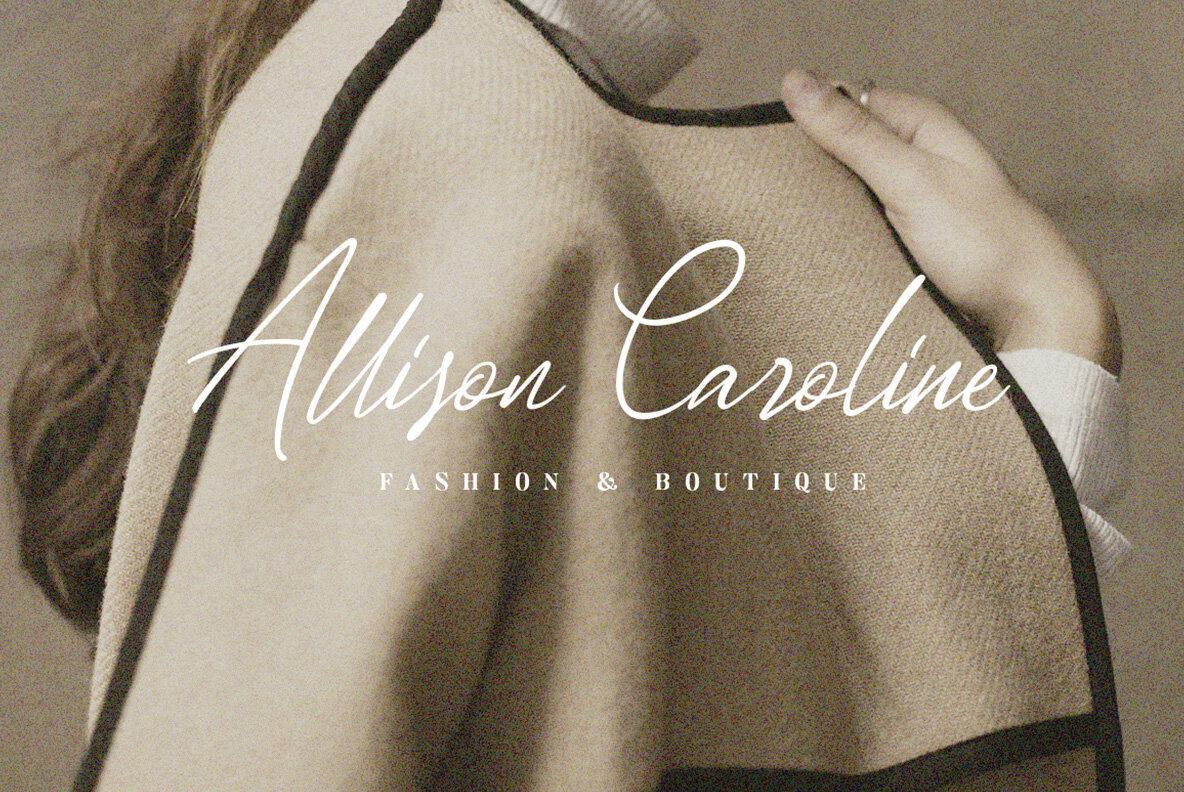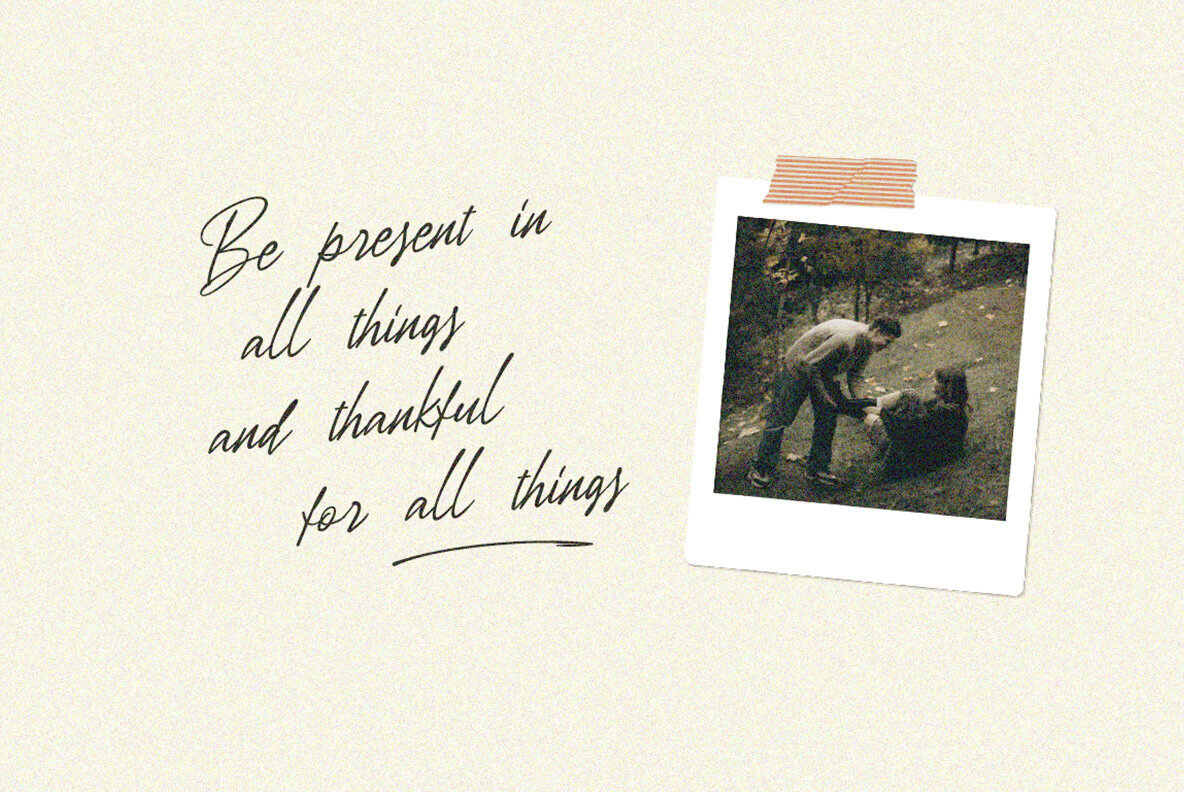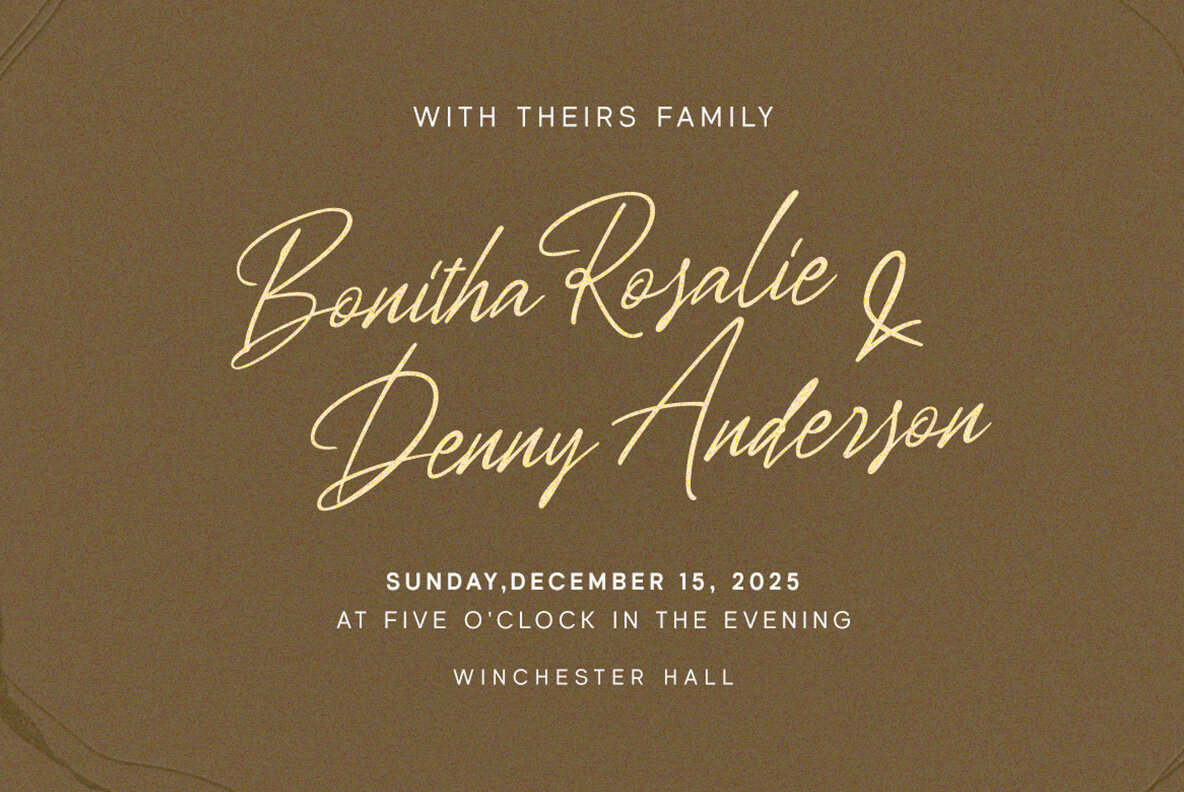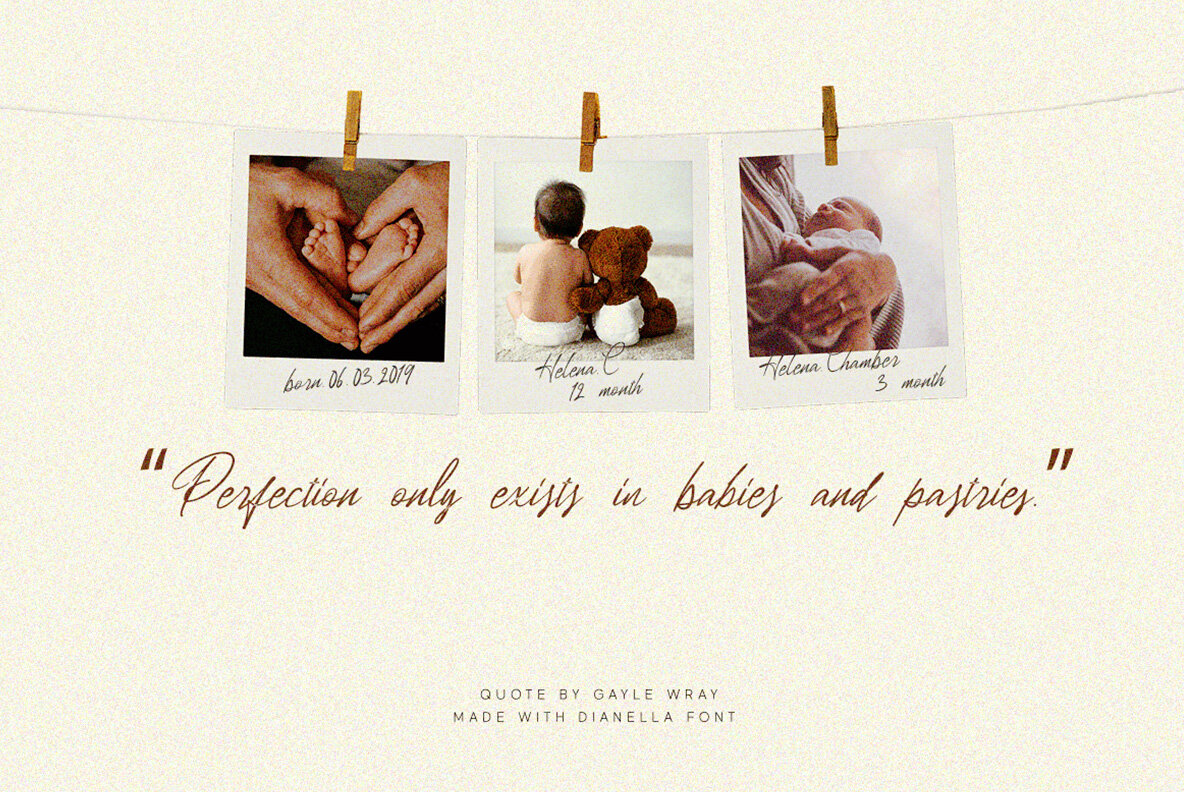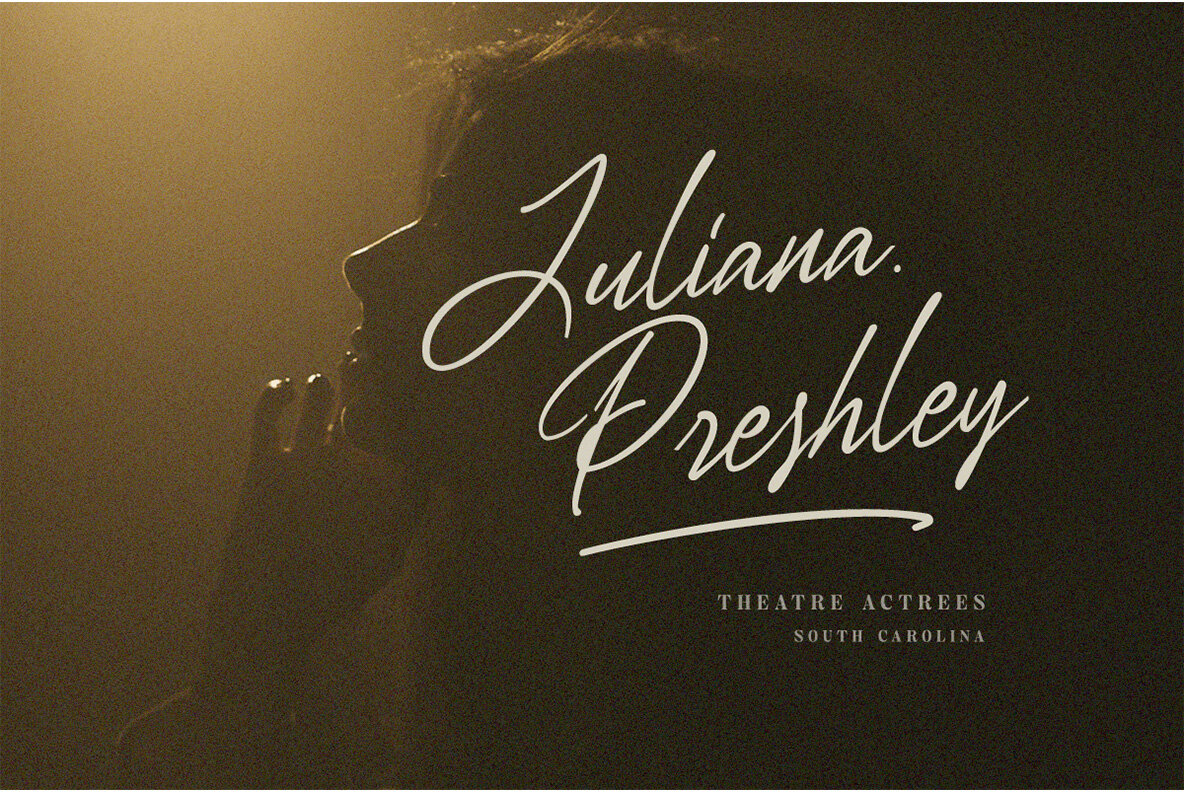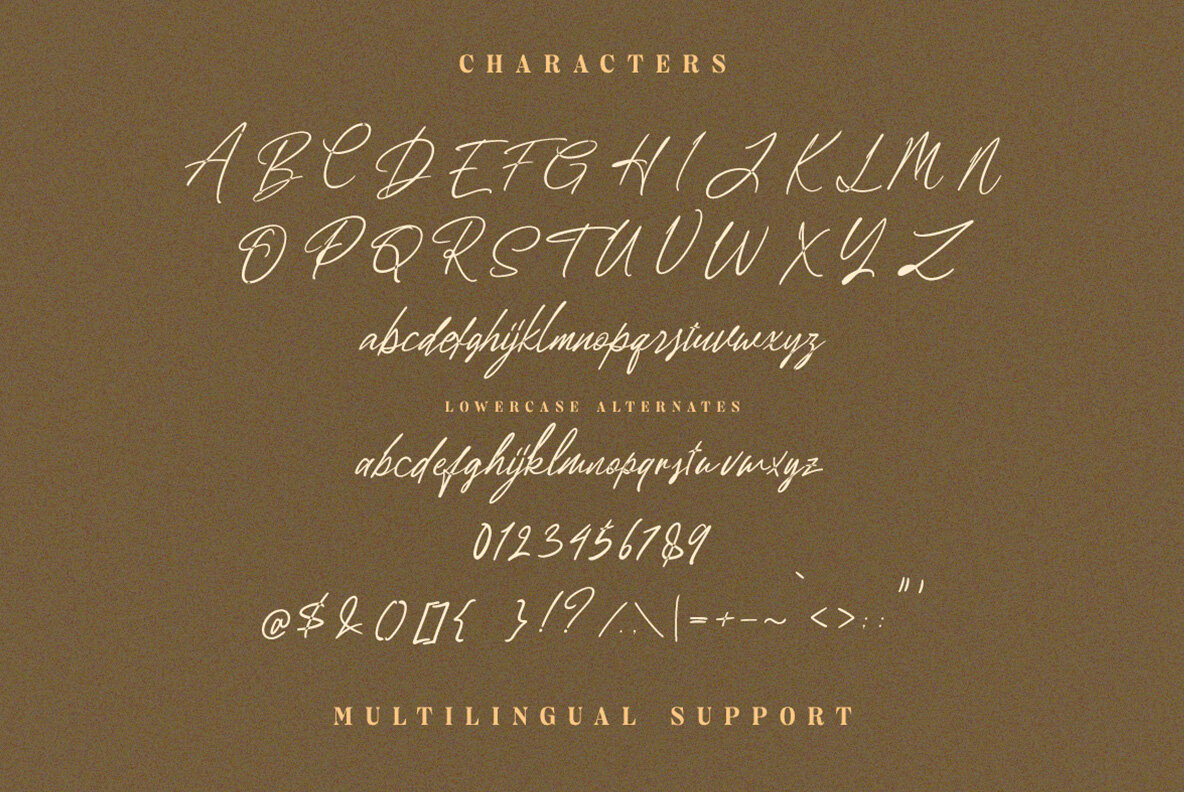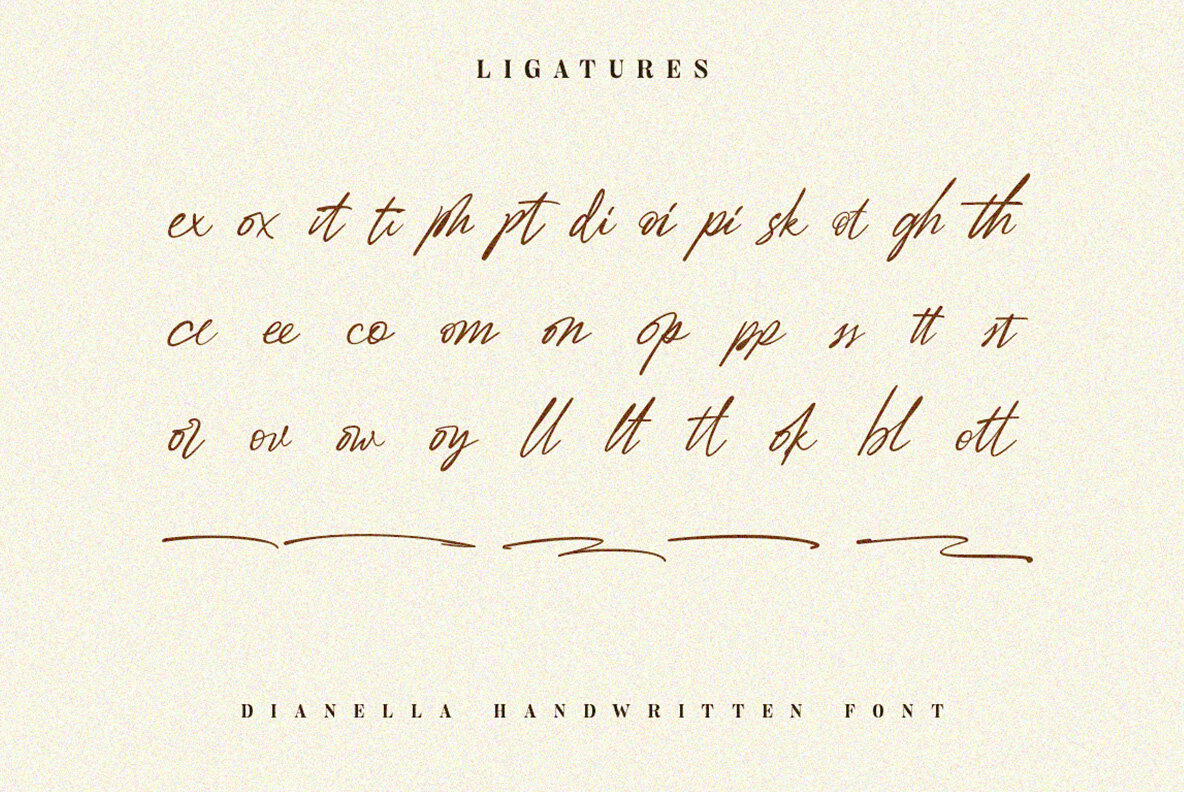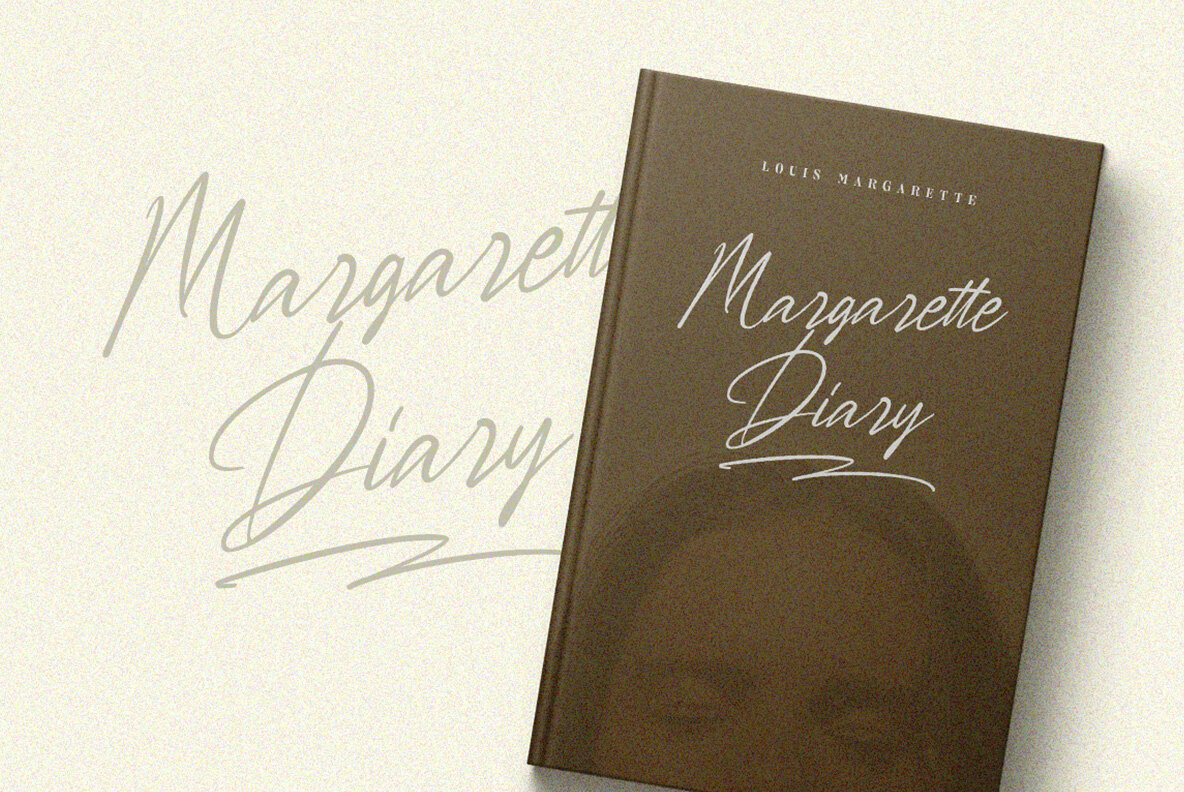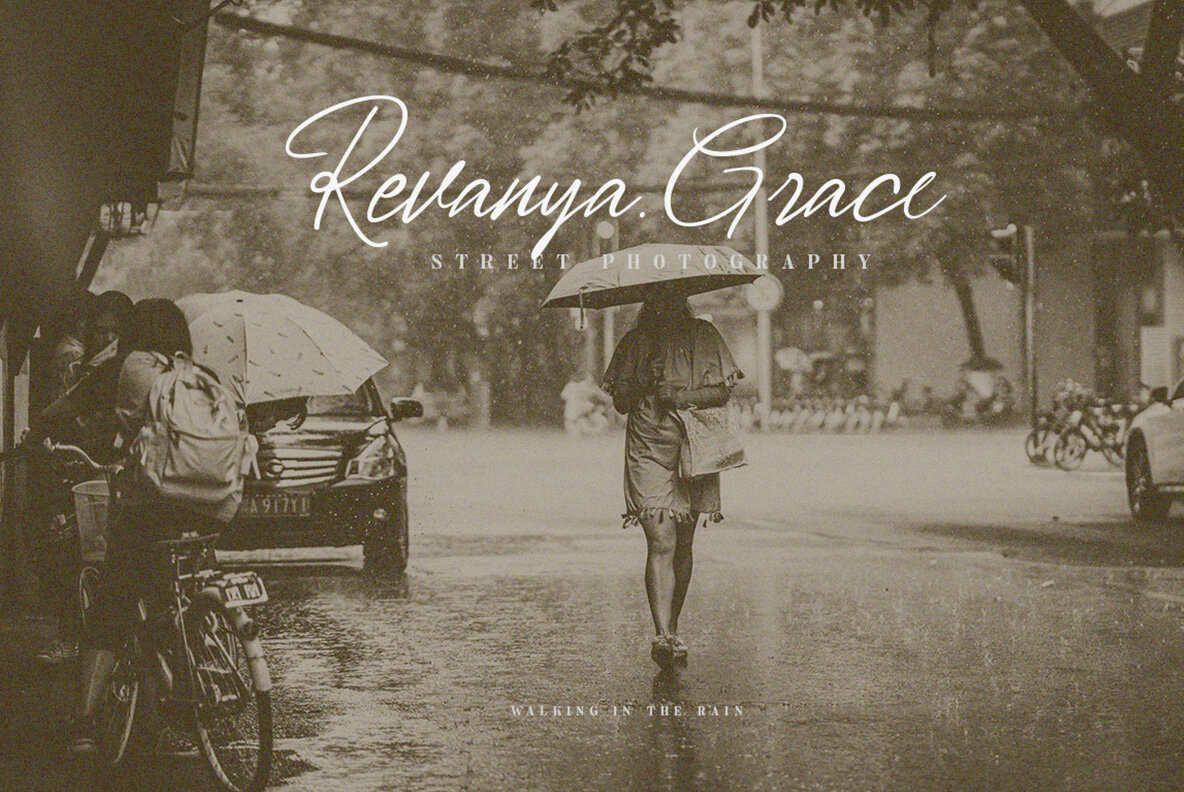
Dianella Font
Dianella Regular
Dianella is a sophisticated script font designed to enhance a variety of formal and decorative projects. Ideal for logos, invitations, magazines, and more, it seamlessly integrates with both print and digital media. With a range of stylistic ligatures, this font captures elegance and creativity in each stroke, making it a preferred choice for designers aiming for distinct and refined presentations. For optimal use of Dianella's features, it’s recommended to utilize design software supporting OpenType functionality, such as Adobe applications and Corel Draw. These programs allow you to access the full range of glyph variations and elevate your designs.Dianella: A Versatile Beauty Script